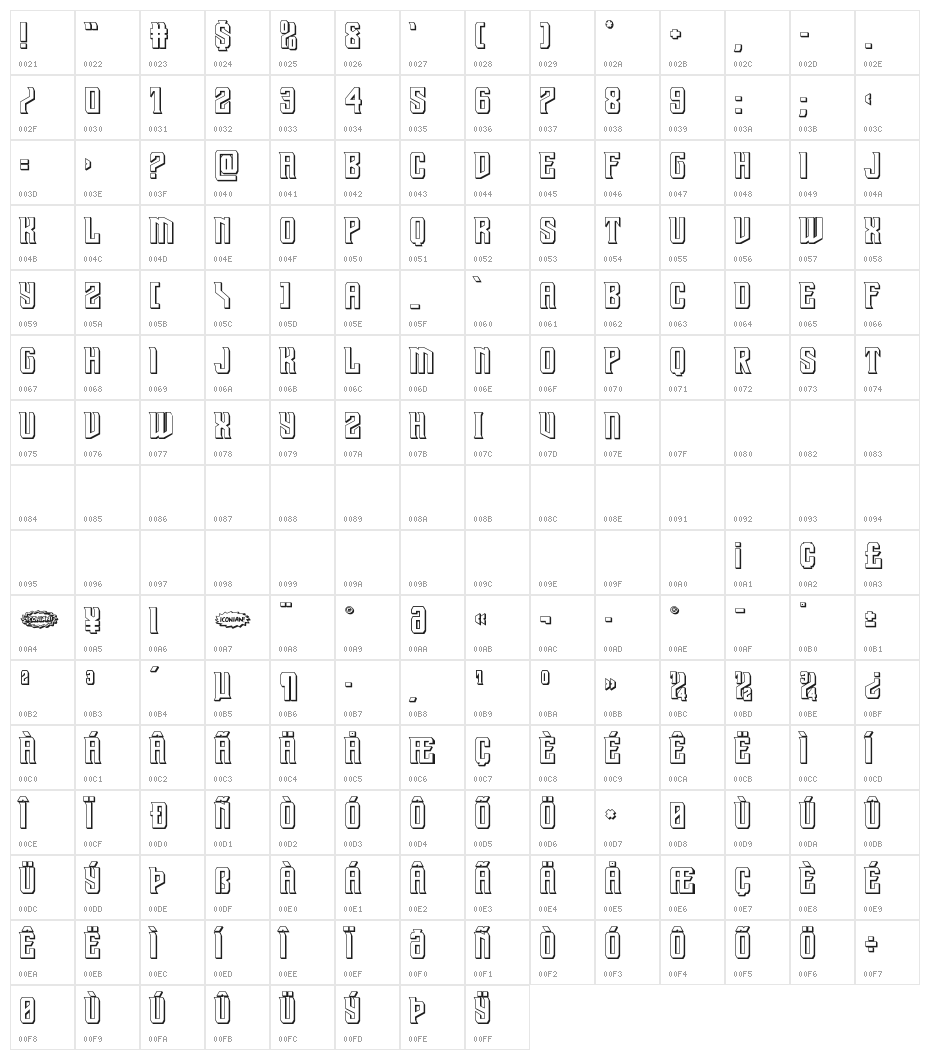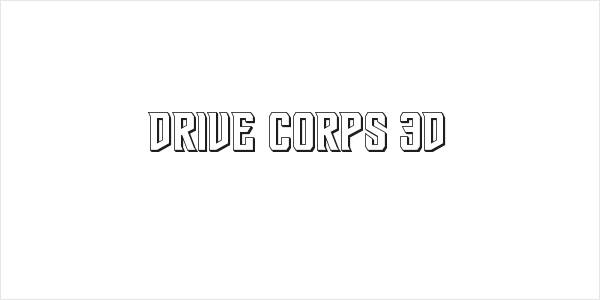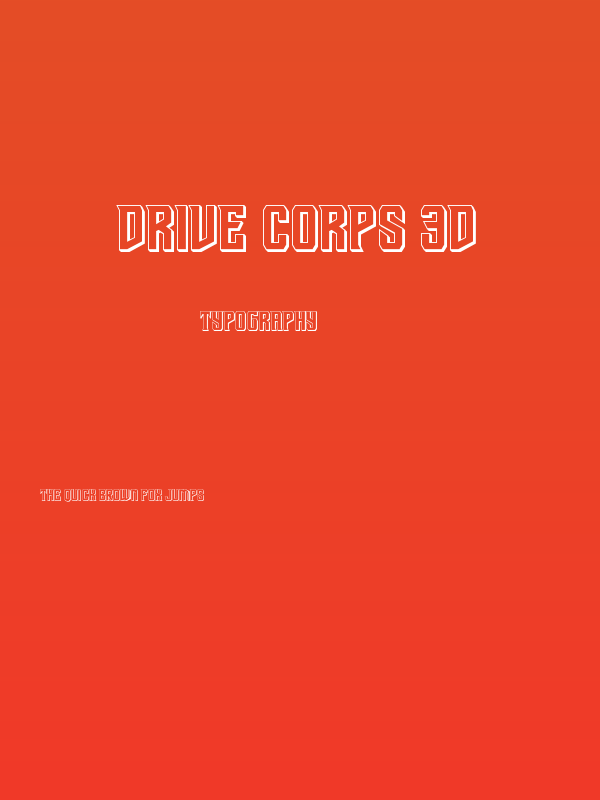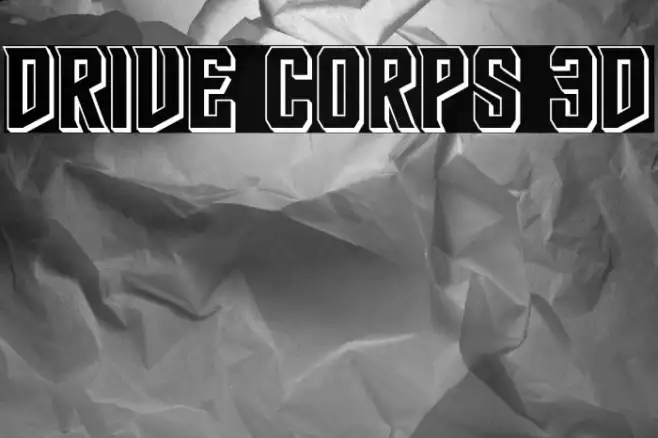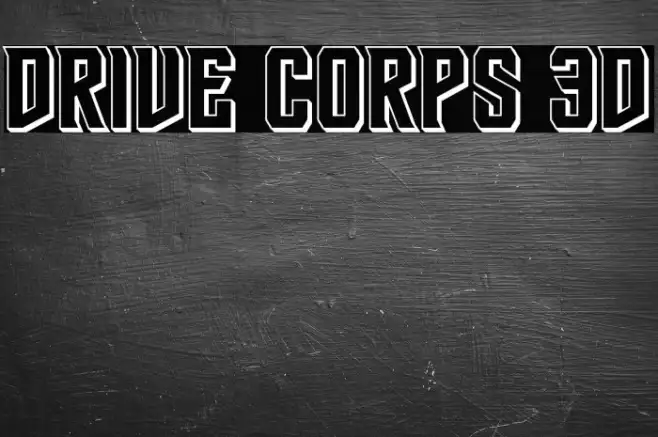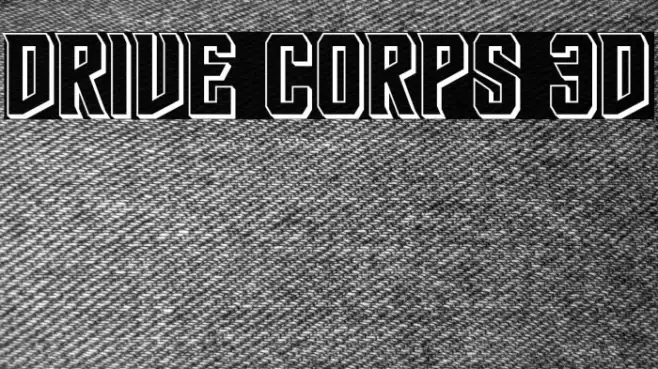
Drive Corps 3D Font
Drive Corps 3D Description
This font features a bold, three-dimensional design with a strong, geometric structure. The letters are uppercase and have a distinct shadow effect that gives them a sense of depth and solidity. The edges are sharp and angular, creating a modern and industrial look. The numbers and special characters follow the same style, maintaining consistency across the font. This design is eye-catching and suitable for projects that require a strong visual impact.